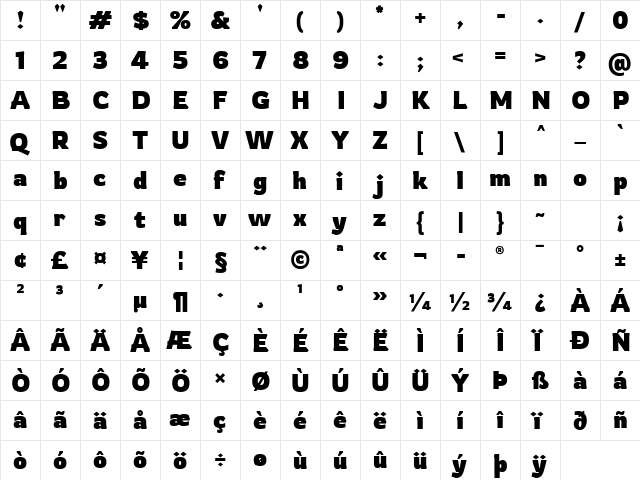
Rowdy Bold
Design Context for Rowdy Typeface
Rowdy is a composed and adaptable typeface that performs quietly and consistently across a wide range of design contexts. The heavy weight commands attention and anchors typographic hierarchies.
Pro Tip: Pair Rowdy with a font of contrasting weight or personality to build a more expressive typographic hierarchy.